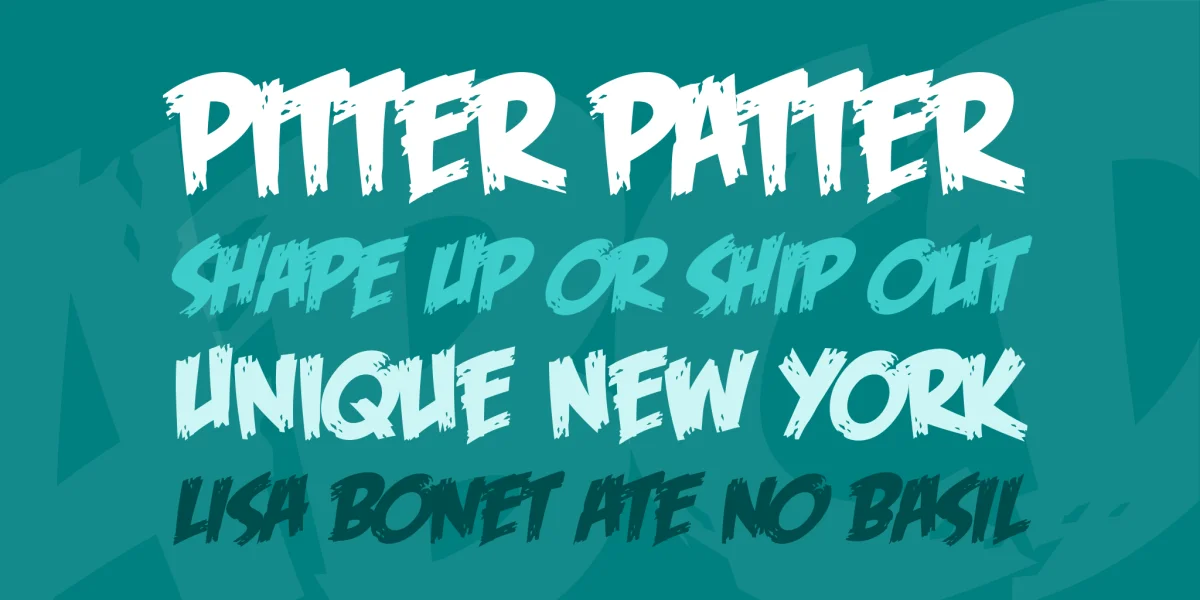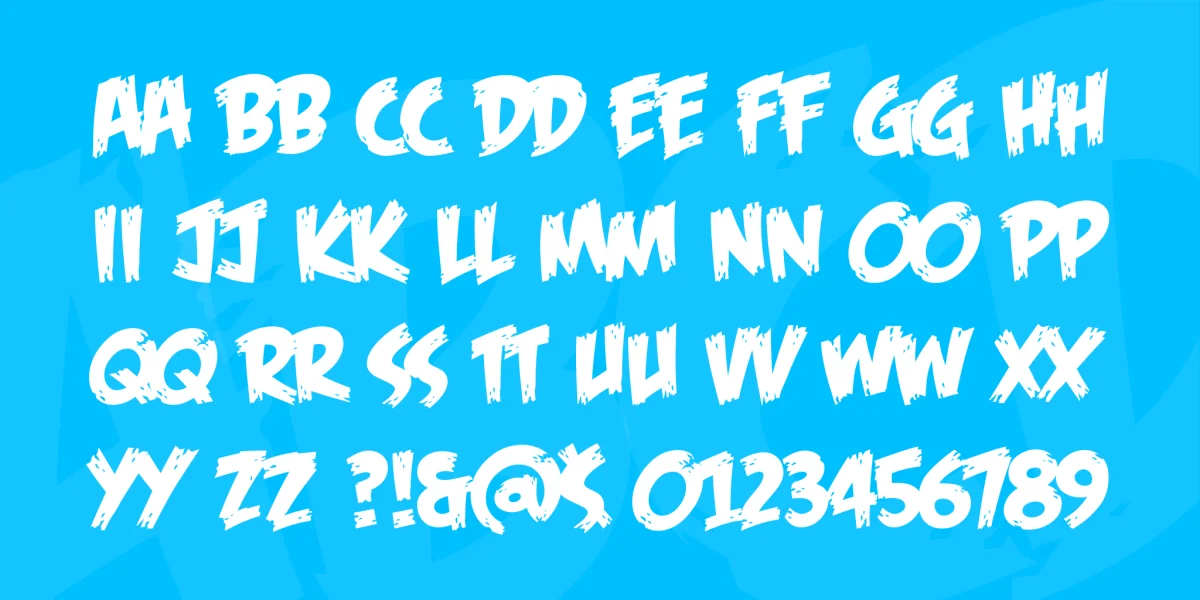
It’s tattered, it’s twisted, it’s a delicious FEAST OF FLESH! Four out of five zombies prefer FEAST OF FLESH to the leading name brand! It even has alternate upper/lowercase tattering for that hand-lettered look! 2015 update! It has improved spacing, kerning & hinting, revised characters, and modern metrics!